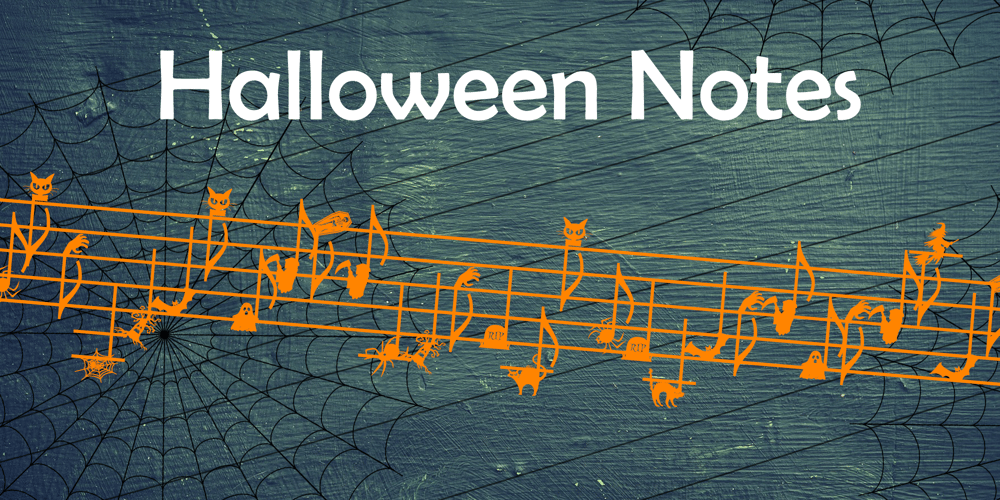
Halloween Notes Font Family was designed by Eyyüb Akça and published by PhoenixXWay. Halloween Notes contains 1 styles and family package options. Every character in this font is meticulously crafted from eerie, yet beautifully haunting music notes.Here are some ways you can use this font to your benefit: Party Invitations: Create spine-chilling invitations for your Halloween party that resonates with the theme, setting the mood for a night of hauntingly good fun. Posters and Flyers: Craft attention-grabbing posters and flyers for haunted houses, Halloween events, or horror movie screenings that evoke the perfect blend of fear and fascination. Merchandise: Design eerie merchandise like t-shirts, mugs, or stickers that cater to Halloween enthusiasts and music lovers alike. Digital Media: Elevate your digital content, including social media graphics, banners, and web elements, to capture the essence of Halloween in a truly unique way. (This font only includes the 26 characters based on the English alphabet)